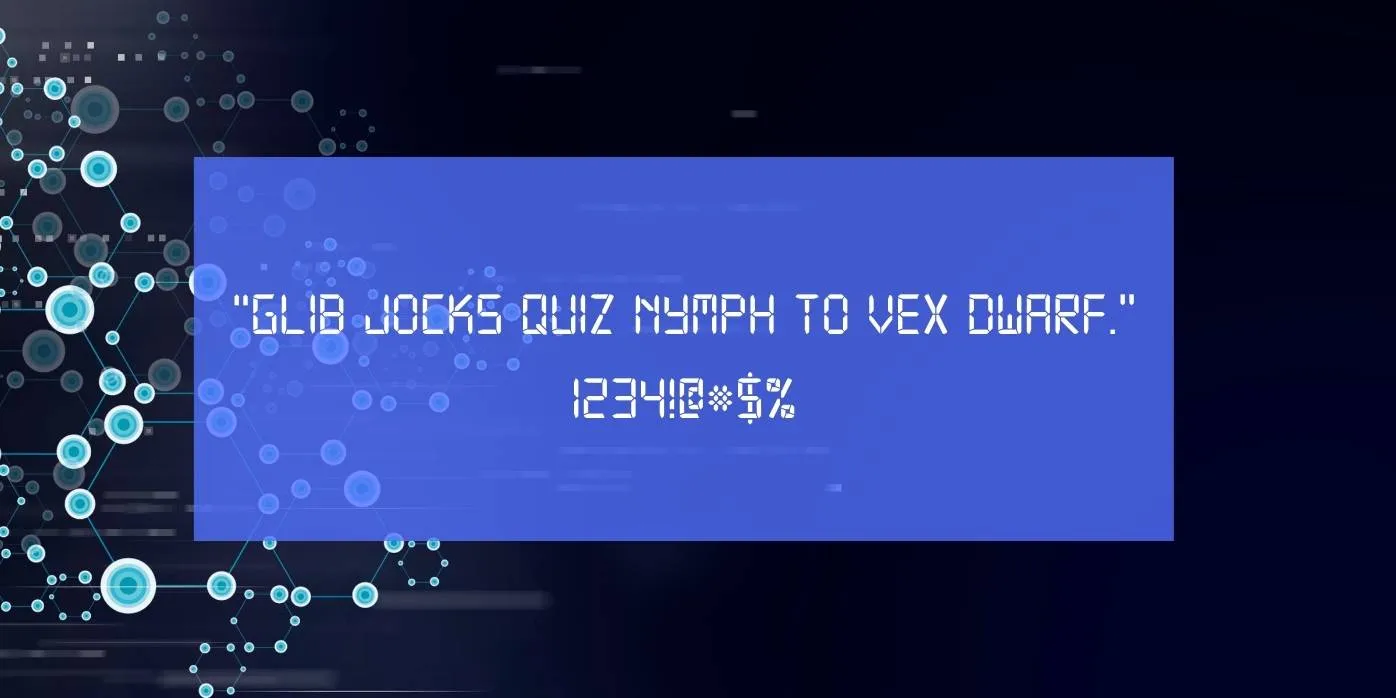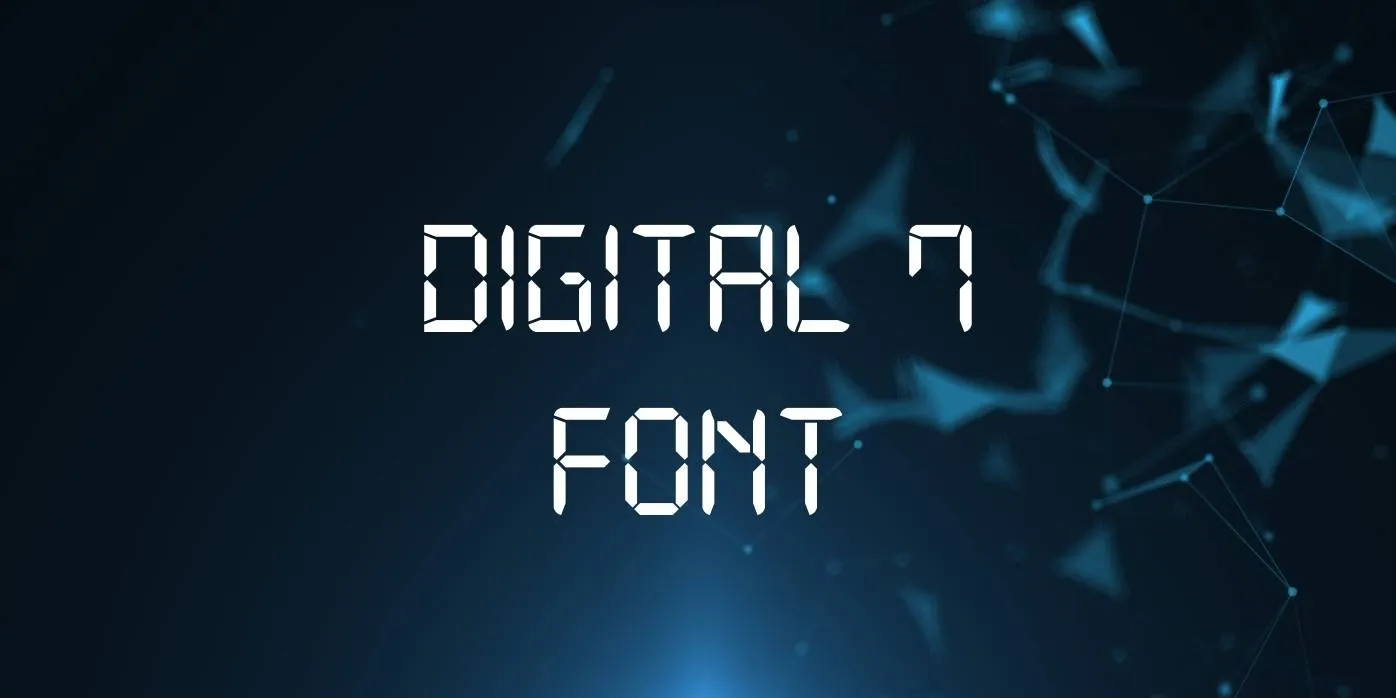
Digital 7 Font
Digital 7 Font is a monospaced display typeface designed by Style 7 in 2006. The design is based on the popular seven-segment displays used in electronic devices. It is available in two styles, Regular and Bold. Each style contains four different widths, from narrow to extra-condensed.
This gives you a total of eight different font weights to choose from. It is a great choice for any project that requires a clean and modern look. It’s perfect for headlines, titles, and body copy. And because it’s a monospaced typeface, it’s also great for code blocks and other technical content.